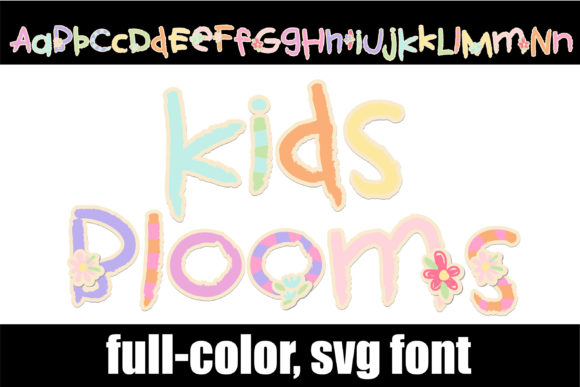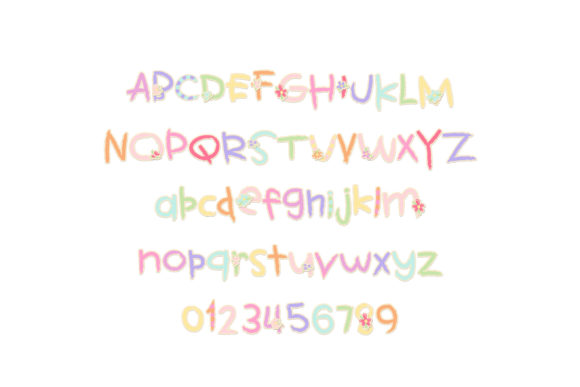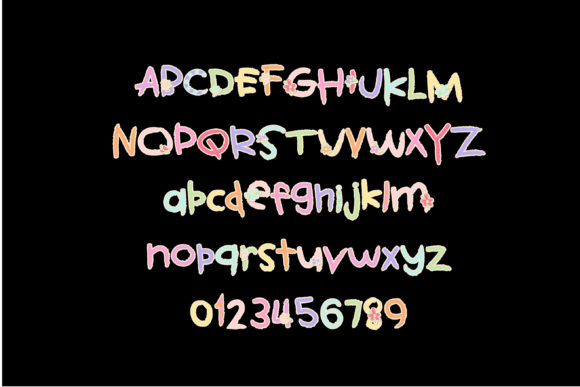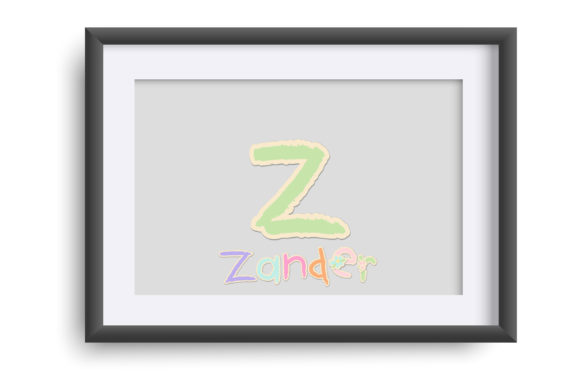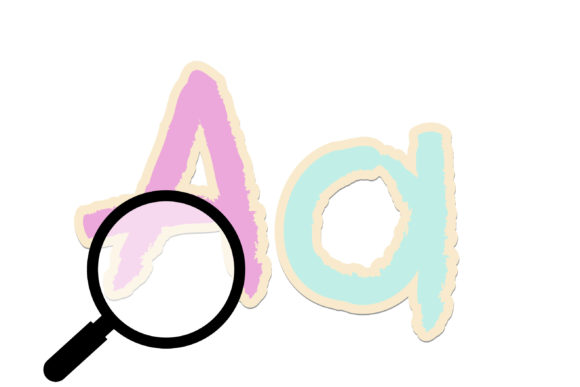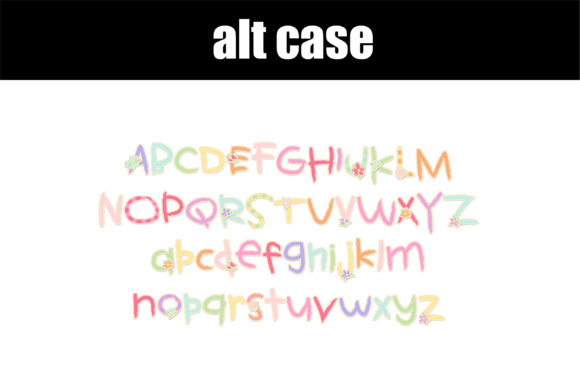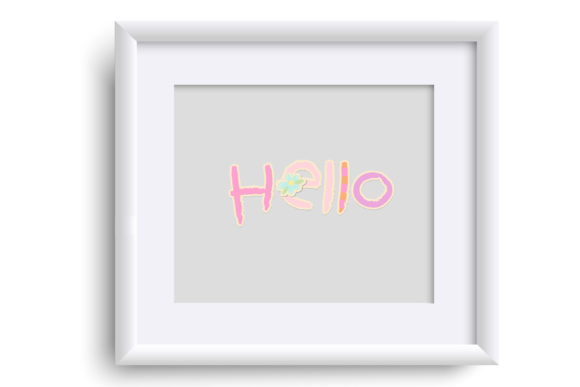
Kid’s Bloom Font
About Kid’s Bloom Font
This full-color font features child-like lettering with adorable flower accents. It captures a playful and whimsical essence, making it perfect for designs that aim to evoke a sense of innocence and joy. In addition to the main lettering style, there is a second version available for each upper and lowercase letter, which can be accessed through the alt cases feature in your system’s character map.
By incorporating this full-color font into your designs, you can add a delightful and enchanting touch. The child-like lettering and flower accents evoke a sense of innocence and playfulness, making it a great choice for various creative projects.
Explore the possibilities of this full-color font in programs that support color fonts and let your creativity flow. With its charming lettering and delightful flower details, this font can bring a whimsical and joyful element to your designs.